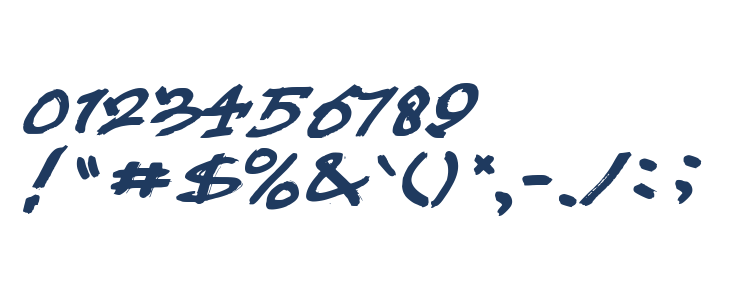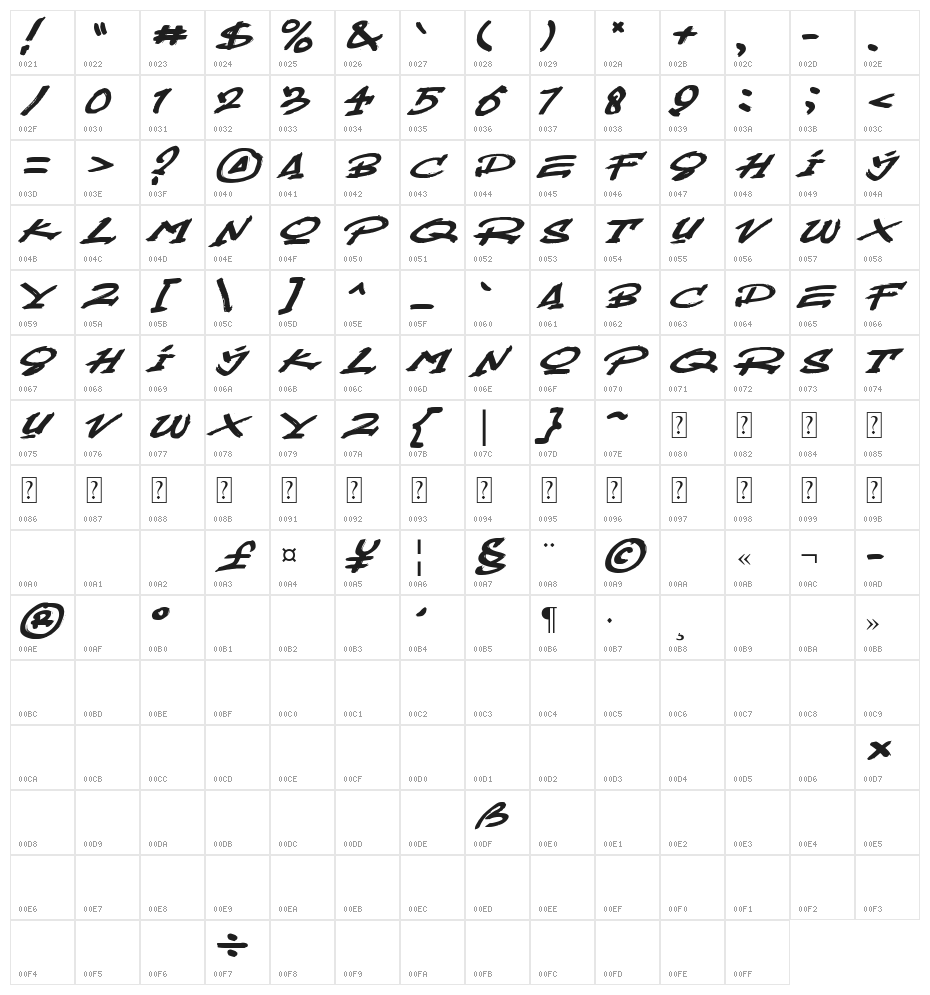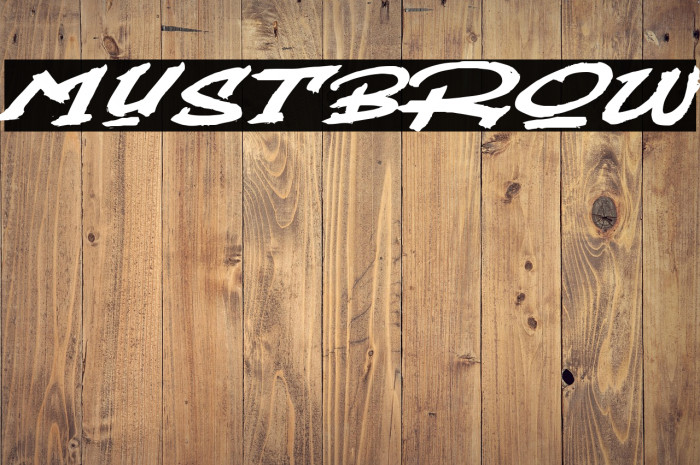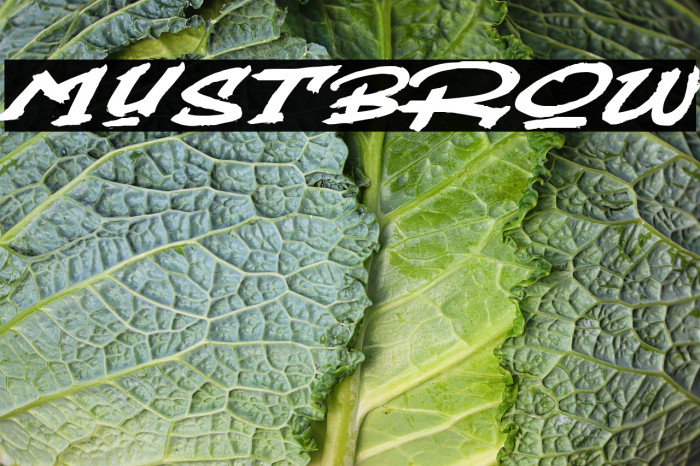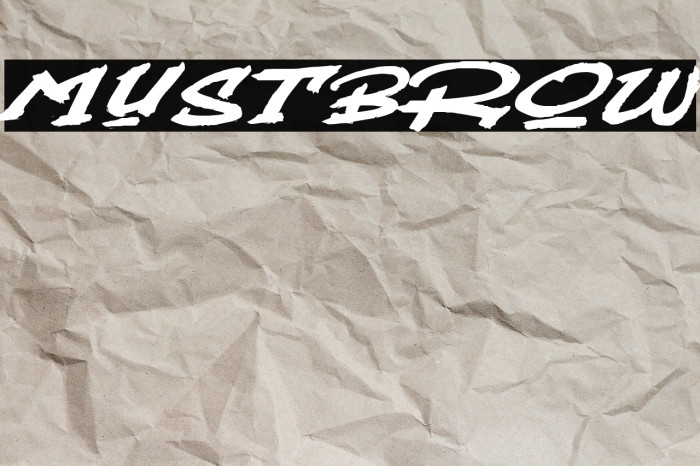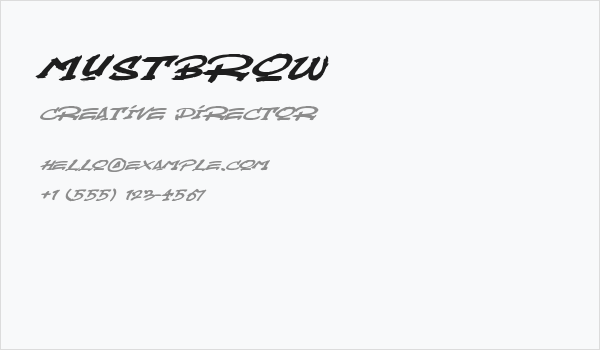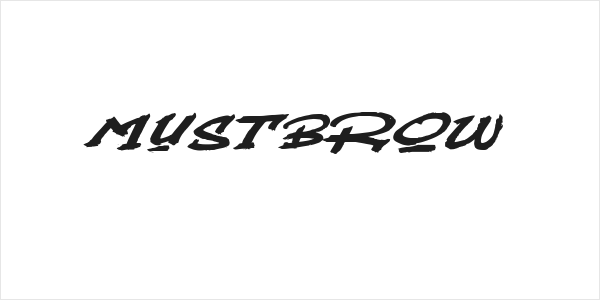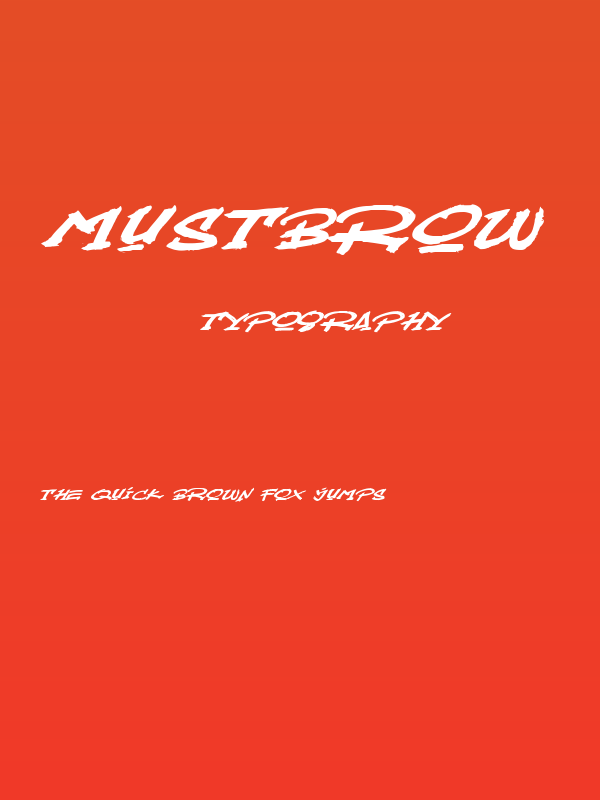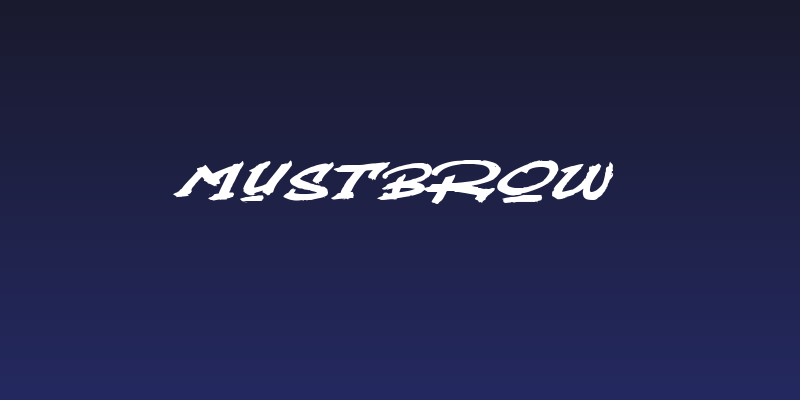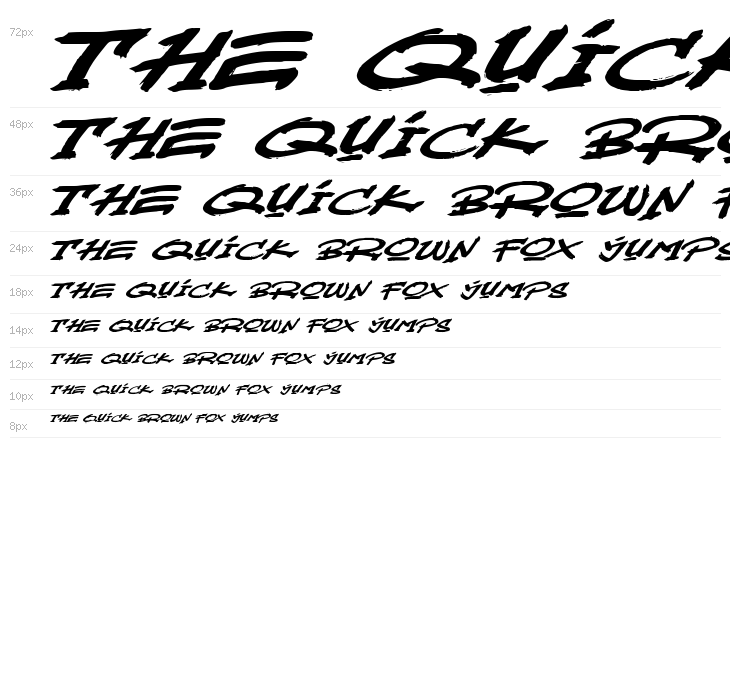
Mustbrow Font
Mustbrow Description
This font features a bold, energetic script style with a dynamic and slightly aggressive appearance. The characters are designed with a brush-like texture, giving them a hand-painted feel. The uppercase and lowercase letters maintain a consistent slant, enhancing the fluidity and motion within the text. The numbers and special characters follow the same stylistic approach, ensuring uniformity across all elements. The strokes are thick and expressive, with some variation in width that adds to the lively character of the font. This design is perfect for projects that require a strong, impactful visual presence.
| Proposed Projects | Ideal for branding, posters, headlines, and any design needing a bold, expressive touch. |